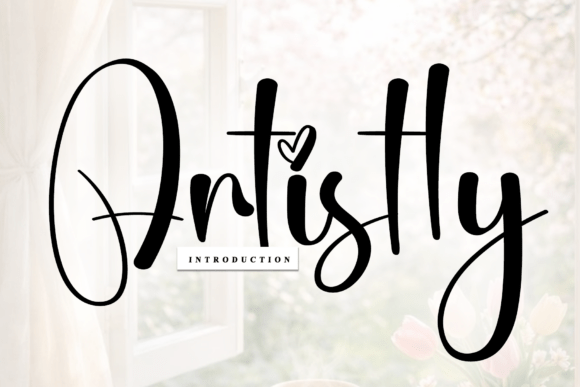
The Art of Typography: Discovering the Perfect Font for Your Creative Vision
As you sit at your desk, surrounded by scattered sketches and empty coffee cups, the spark of inspiration strikes. You envision a brand that exudes elegance and sophistication, a font that whispers of handmade craftsmanship and bespoke design. In this moment, the Artistly Font comes to mind – a sophisticated and rhythmic script font that embodies the perfect blend of calligraphic flair and organic charm.
This elegant font is specifically designed to capture the essence of artisanal brands, from gourmet food packaging to upscale lifestyle marketing. Its sweeping, looping ascenders create a sense of customized artistry that elevates any design to new heights. For designers, the Artistly Font is a valuable tool in their creative arsenal, offering a unique and timeless aesthetic that sets them apart from the rest.
Artistly Font Key Features
- Unique Characteristics: Artistly Font features a unique blend of modern and vintage elements, with intricate details and subtle texture, making it perfect for artistic and creative projects.
- Font Style: The font comes in three distinct styles: Regular, Bold, and Italic, offering versatility and flexibility for various design needs.
Designer Review: Artistly Font
Overall, I’d say Artistly Font is a decent choice for creative projects, but it’s not without its flaws. Let’s dive into what works well and what doesn’t.
- The font’s playful and whimsical feel is perfect for artistic and design-focused projects.
- The varied letterforms and flourishes add a sense of sophistication and elegance.
- The font is highly legible, making it suitable for body text and headings alike.
- The font’s design is a bit too ornate for everyday use, making it better suited for special occasions or creative projects.
- The font’s weight range is limited, making it less versatile than other fonts.
- The font’s spacing and kerning can be a bit off, especially at larger font sizes.
While Artistly Font has its strengths, its limitations hold it back from being a top-tier font choice. However, if you’re looking for a unique and elegant font for a specific project, Artistly Font might be worth considering.
Artistly Font is ideal for creative projects, such as:
1. Branding and logos
2. Print materials, such as business cards and brochures
3. Digital designs, such as social media graphics and website headers